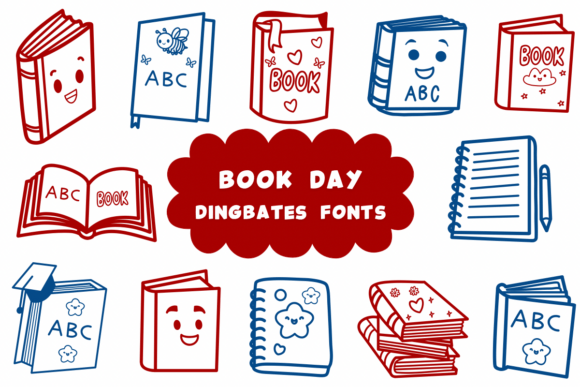
Celebrating Literacy with Book Day Dingbates Fonts
Have you ever been in the middle of a design project, pouring your heart and soul into creating something special, only to hit a creative roadblock? I recall a particularly frustrating experience while working on a World Book Day campaign for a local library. My task was to craft an engaging poster that would captivate both children and adults, but I was struggling to find the perfect font that embodied the joy of reading. That’s when I stumbled upon the delightful Book Day Dingbates Fonts, a charming collection of line-art icons that instantly brought a whimsical touch to my project.
The Magic of Book Day Dingbates Fonts
Book Day Dingbates Fonts is a set of professionally illustrated book-themed characters that are sure to enchant any academic or literary project. This delightful font features a variety of anthropomorphic textbooks with friendly faces, spiral notebooks, and open readers adorned with hearts, stars, and graduation caps. The clean, monolinear aesthetic and “kawaii” personality make these icons an exceptional choice for library branding, school event posters, educational worksheets, and bookstore social media content.
• ✨ The charming, hand-illustrated designs that add a touch of personality to any project
• âś… The versatility of the font, which can be used for a wide range of applications, from educational materials to social media graphics
• đź’ˇ The ability to convey a sense of professional craftsmanship and approachable, human-centric joy
While Book Day Dingbates Fonts is an excellent choice for many projects, there are a few things to keep in mind. ⚠️ Some of the glyphs may be quite detailed, which can make them difficult to read at smaller font sizes. Additionally, the font may not be suitable for very formal or traditional designs, as it has a distinctly playful personality.
The Story Behind Book Day Dingbates Fonts
The Book Day Dingbates Fonts were designed by a team of illustrators and typographers who are passionate about education and literacy. The designers wanted to create a font that would bring a touch of whimsy and fun to educational materials, while also conveying a sense of professionalism and approachability. The result is a charming collection of icons that are sure to delight both children and adults.
What is Book Day Dingbates Fonts? Book Day Dingbates Fonts is a collection of line-art icons designed to represent various aspects of reading and education.
Is Book Day Dingbates Fonts suitable for children’s projects? Absolutely! The font features cute, playful illustrations that are sure to delight children and add a touch of whimsy to any project.